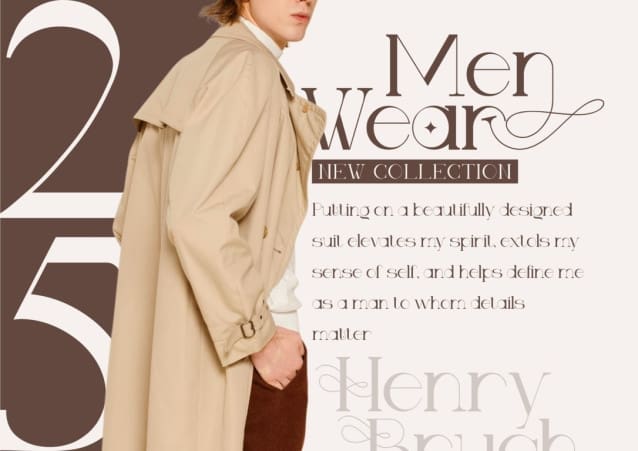
Wonderast Font
Wonderast Font, an elegant and classy serif font that exudes contemporary sophistication. With a sleek and minimal design, this typeface exudes a timeless sense of sophistication and class. Carefully crafted by skilled designers, Wonderast is the ideal choice for all your important endeavors, infusing your designs with a touch of sophistication and professionalism.